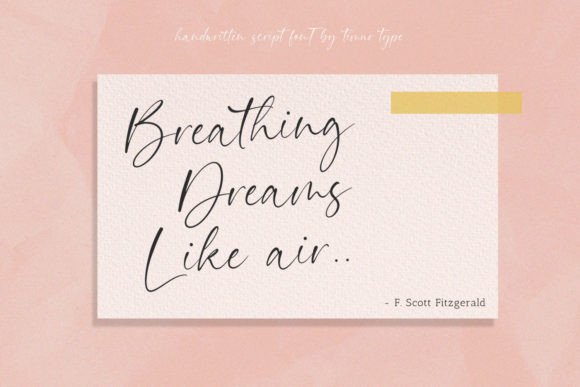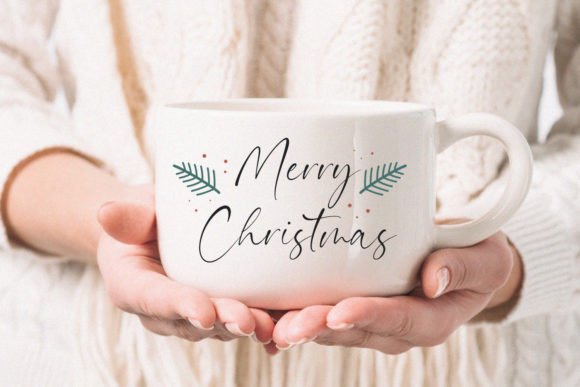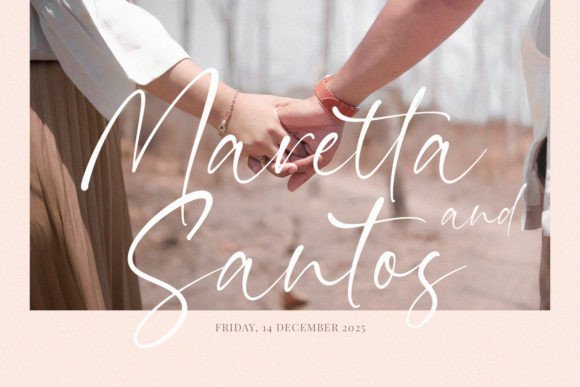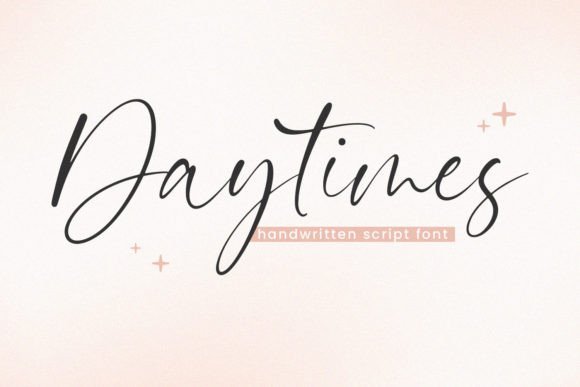
Introduction to Daytimes Font
Daytimes is a sleek handwritten font created with great care, especially for you.
Daytimes is perfect for product packaging, branding project, magazines, social media, weddings, or just used to express words above the background .